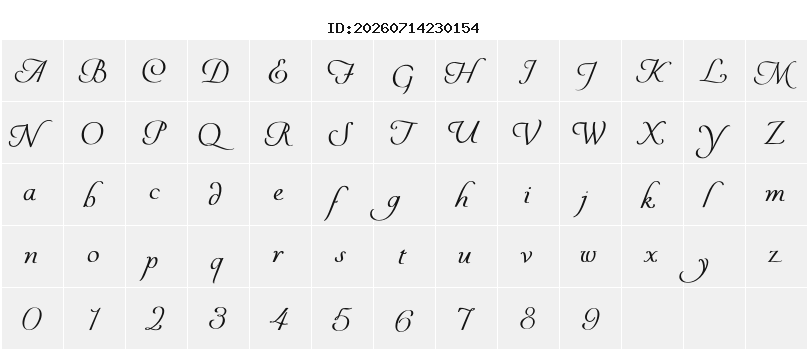
YoureInvited Preview
• Font Name: YoureInvited
• Designer: Lawrence Rosa
• Manufacturer: Mario Arturo
• Description: Traced from the 1916 book LETTERING by Thomas Wood Stevens. The typeface is designed by Lawrence Rosa. Refining by Mario Arturo.
About YoureInvited.otf